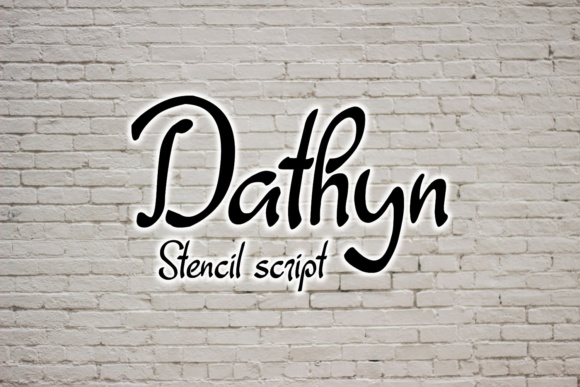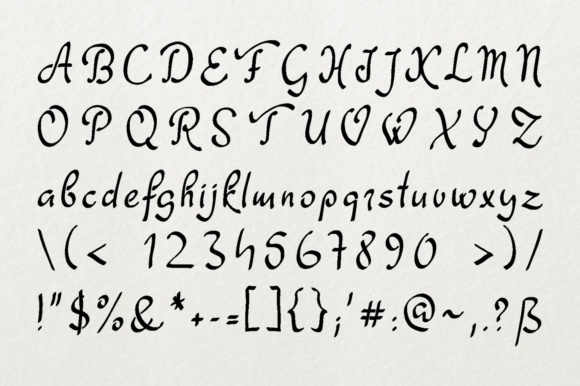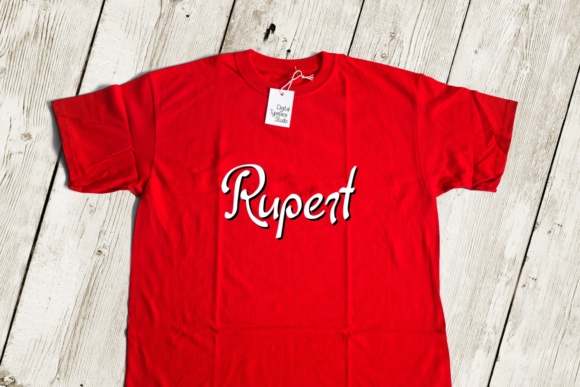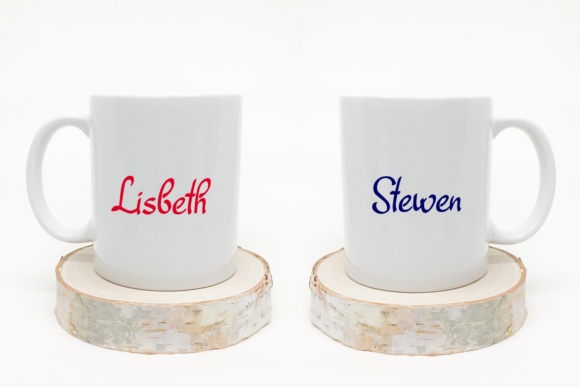
Dathyn Font
About Dathyn Font
Dathyn is a unique and creative stencil script font. This handwritten calligraphy font is crafted without closed loops on the characters, so you can create truly unique and original looking designs.